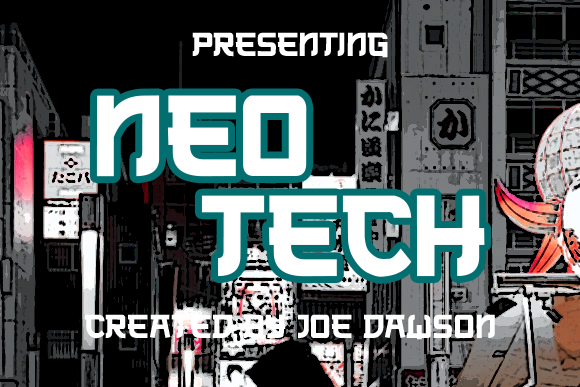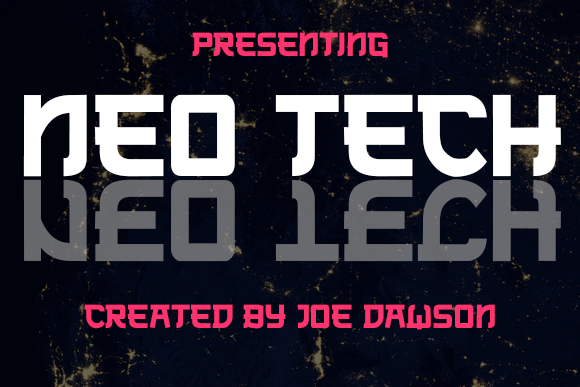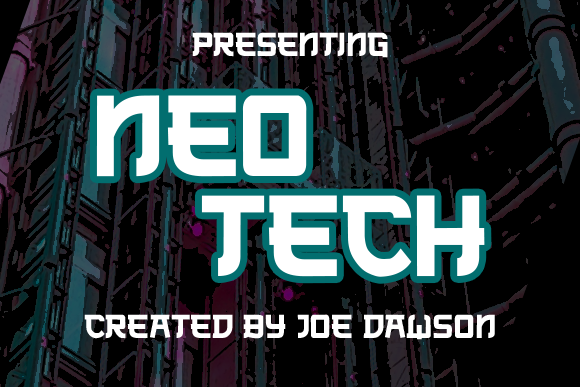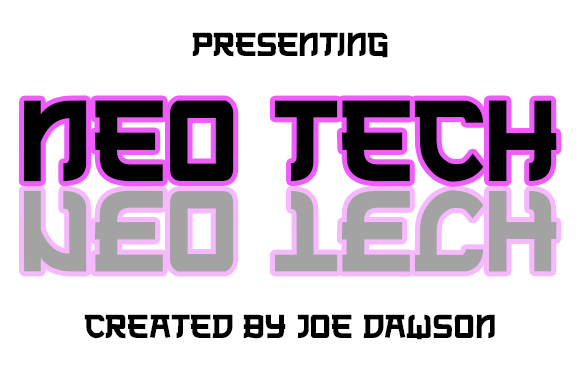
Neo Tech Font: Modern Display Font for Futuristic Logo Design
About the Neo Tech Font
Meet Neo Tech Font, a stunning font that brings a touch of elegance and professionalism to any design. Neo Tech is a modern, Asian-inspired display font. With it’s smooth curves and sharp angles, this font will make your designs stand out.
Neo Tech’s strong geometric forms and elegant curves make it ideal for headlines, logos, and short impactful statements in branding materials and posters. Its unique character also lends itself well to packaging design, particularly for products emphasizing modern aesthetics or technology. However, its display nature makes it unsuitable for body text or long-form content; readability suffers at smaller sizes.
The font’s personality is sophisticated yet energetic. To complement this, consider pairing Neo Tech with a clean sans-serif like Open Sans for body copy or a slightly more playful script font such as Great Vibes for secondary text elements, depending on the desired level of contrast.
A geometric sans-serif like Roboto would also create a cohesive, modern feel, strengthening Neo Tech’s technological aesthetic. Avoid pairing it with overly ornate or decorative fonts, which would clash with its clean lines and modern feel.
Neo Tech Font Usage Examples
Neo Tech Font Example